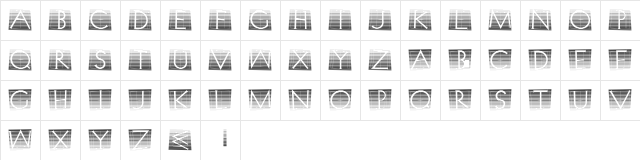
XperimentypoStripes Regular
Design Context for XperimentypoStripes
XperimentypoStripes is a composed and adaptable typeface that performs quietly and consistently across a wide range of design contexts.